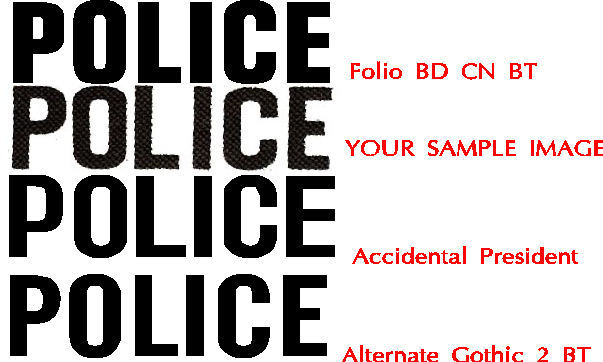
Univers 67 (several versions) however the P O and C are more square than that - I have to add AUX under it and need an exact match - if any one can help I will appreciate it! (sorry its a a scan from a shirt)
I'm unable to get an accurate match. My best guess is that it is a font that was designed as a more condensed font and which has been expanded. the squared off look of the "O" and "C" are typical of condensed or compressed styles. It's definitely not Univers due to the structure of the "E" being noticeably different. I tried a number of the usual suspects without finding one close enough to recommend.
My suggestion would be to just use Univers 67 since none of the letters are the same anyway. As an alternative, you could also reset the entire text.
I searched all through my 10,000+ fonts because I KNEW that I had this font. (I used to have it but not sure where it went.)
It's Called Folio Condensed.
I have Folio Bold Condensed BT. I have three fonts that are darn close, and with kerning and stretcing, you can make folieo bold condensed an exact match to the naked eye, but I'm sure you want Folio Condensed. See sample below: